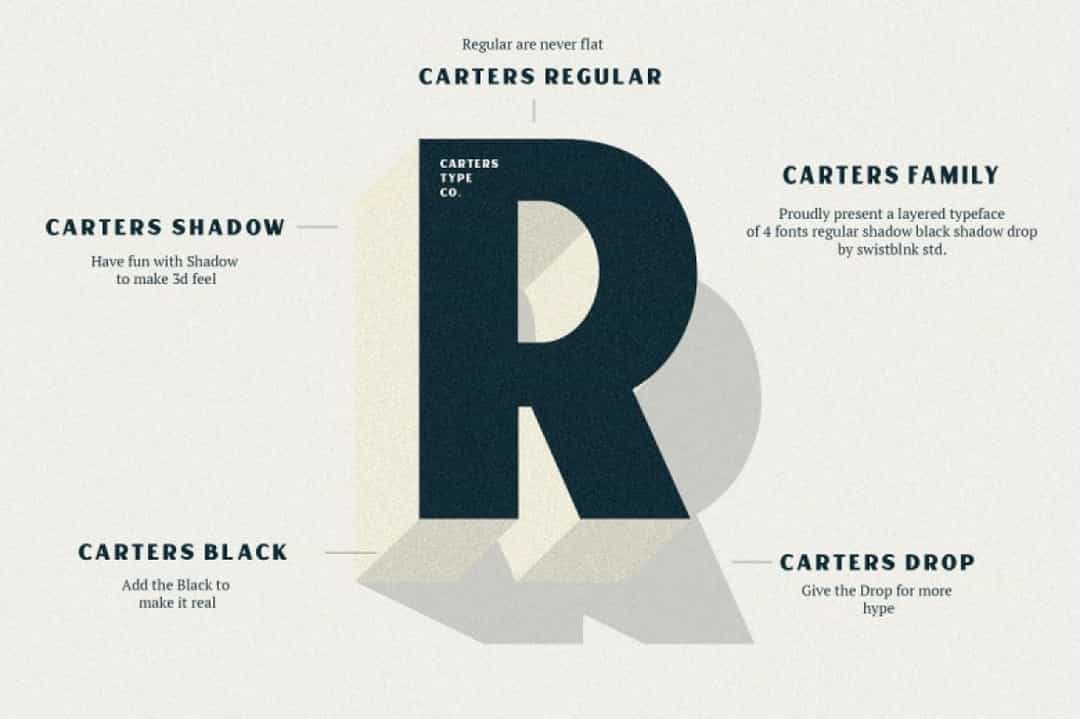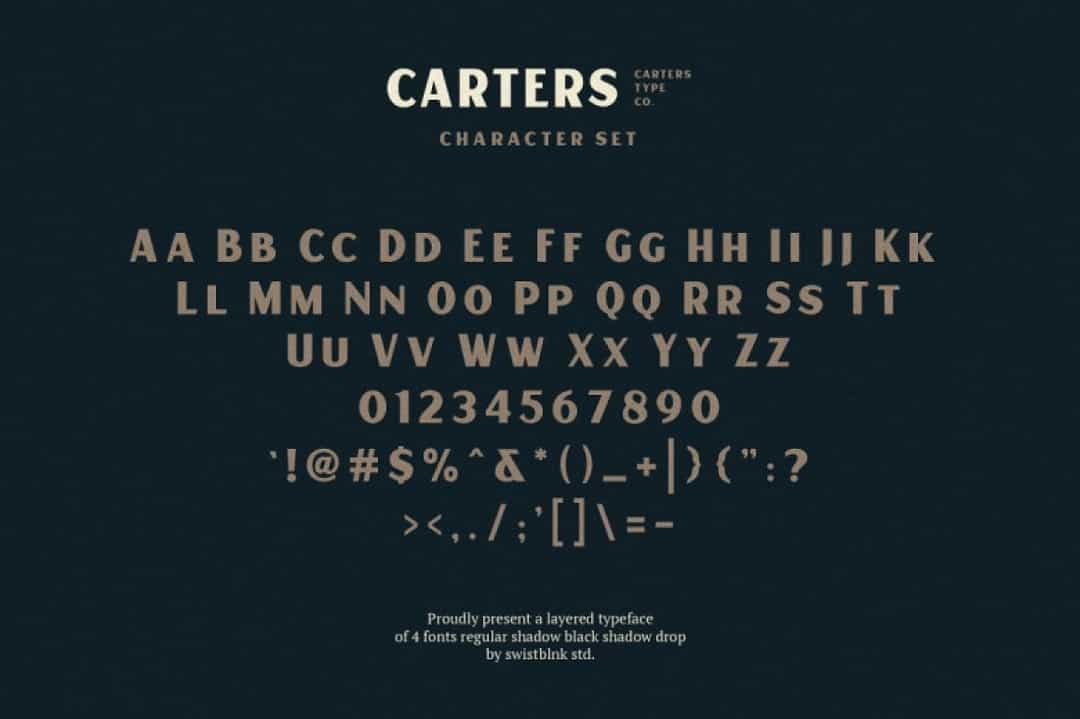
Carters Layered is an irreverent vintage sign typeface. Utilizing its layered system, you can quickly and easily create retro designs for any design project imaginable. Plus, its versatility allows countless combinations to be created!